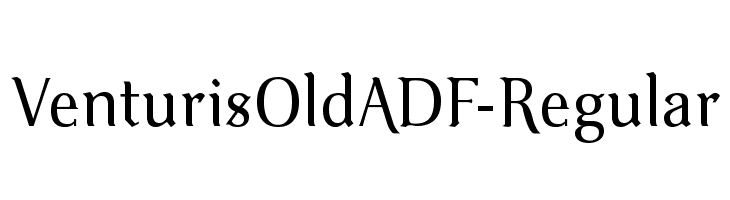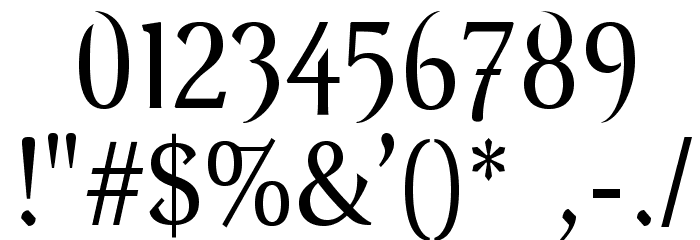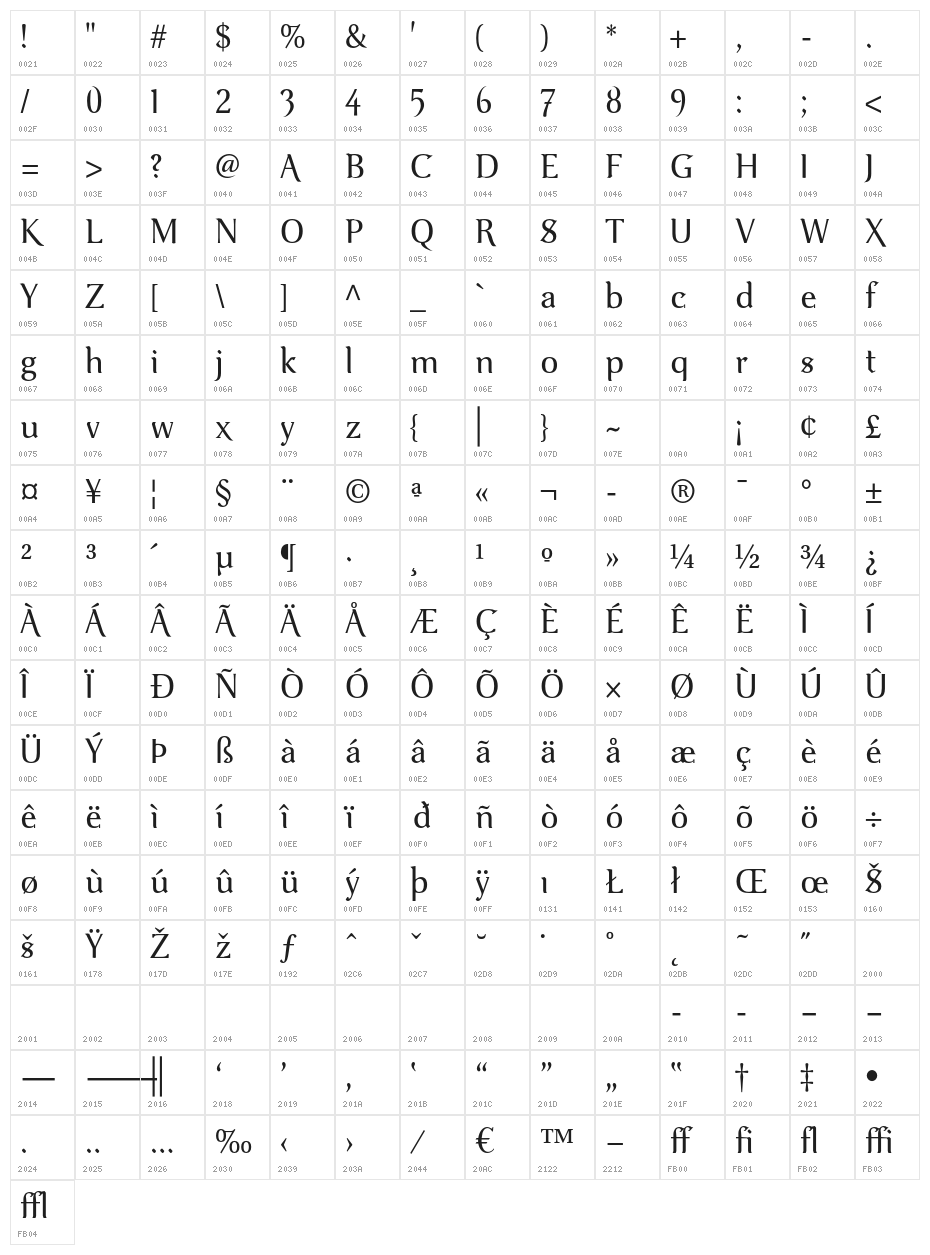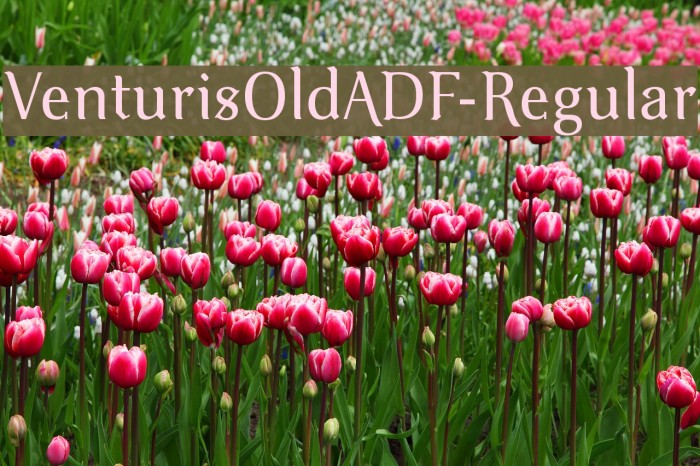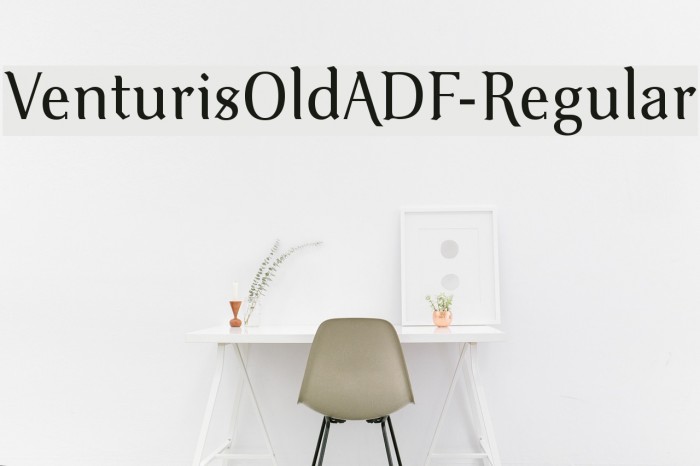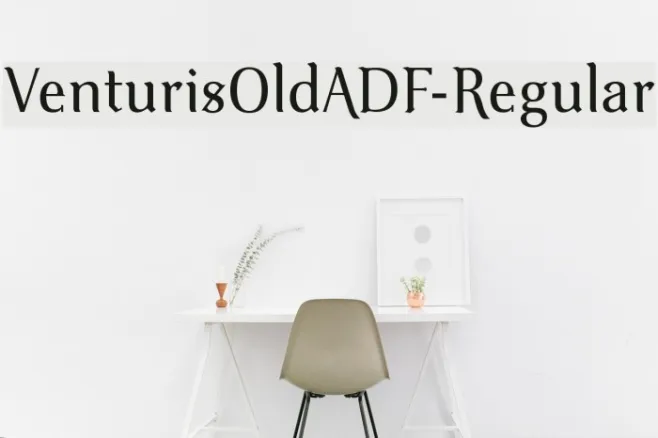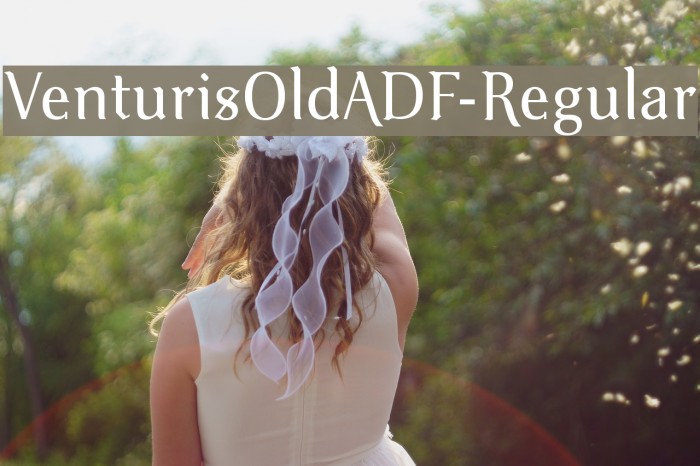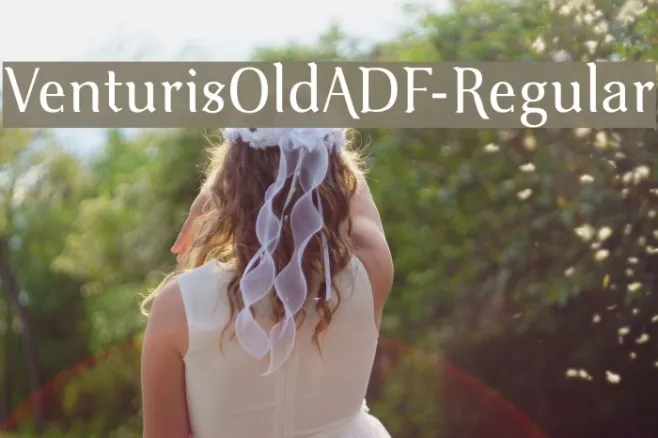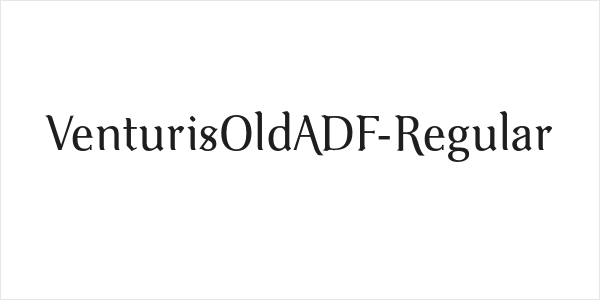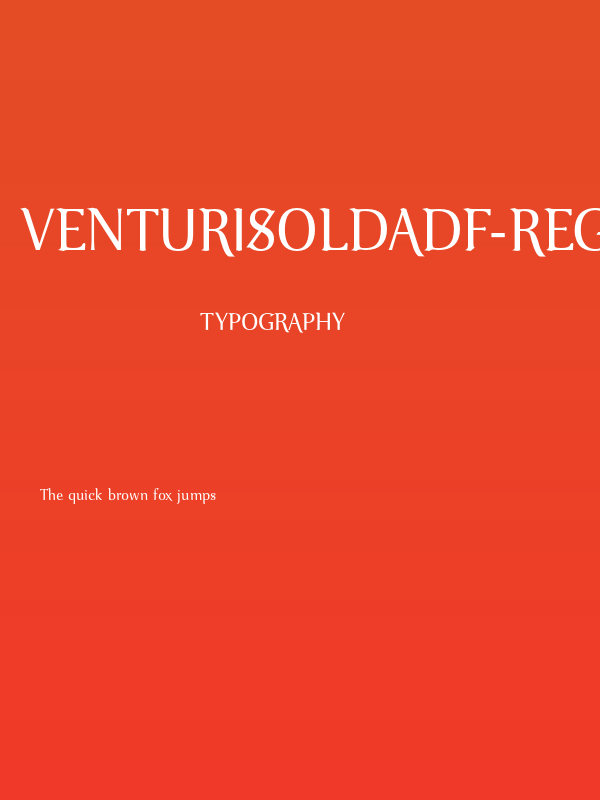
VenturisOldADF-Regular Font
VenturisOldADF-Regular Description
This typeface features a classic serif design with elegant, slightly curved strokes that add a touch of sophistication. The uppercase letters are bold and commanding, while the lowercase letters maintain a consistent style with subtle variations in stroke width. The numerals are clear and distinct, making them easily readable. Special characters are well-integrated, maintaining the overall aesthetic of the font. The design is reminiscent of traditional serif fonts, yet it incorporates modern elements that make it versatile for various applications.
| Proposed Projects | Ideal for book covers, editorial design, formal invitations, and branding projects that require a touch of elegance. |